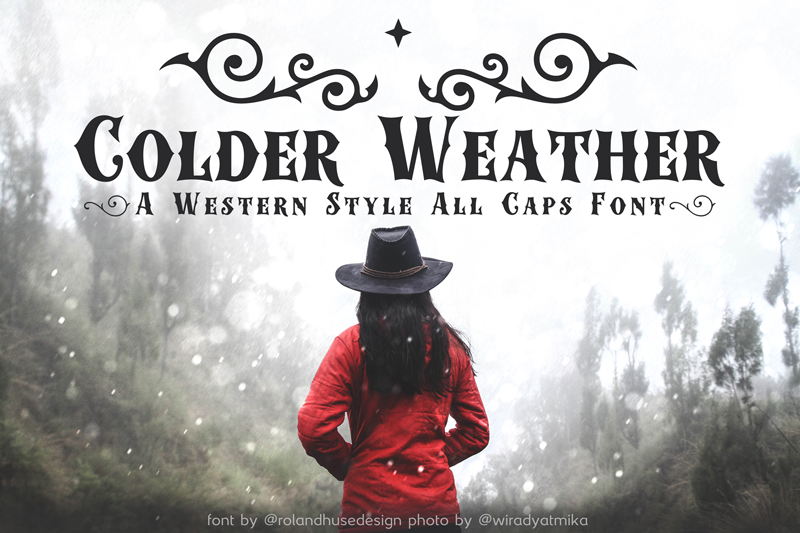
�Colder Weather� is a Western Style All Caps font with basic Latin character set. A-Z a-z numbers 0-9 .:,;?! type ( ) { } [ ] for the ornaments. For commercial use, full or extra character set request please write me at contact@rolandhuse.com for more fonts visit https://rolandhuse.com or store.rolandhuse.com @rolandhusedesign Follow me on Instagram workingwithglyphs.com subsribe to my Glyphs course |